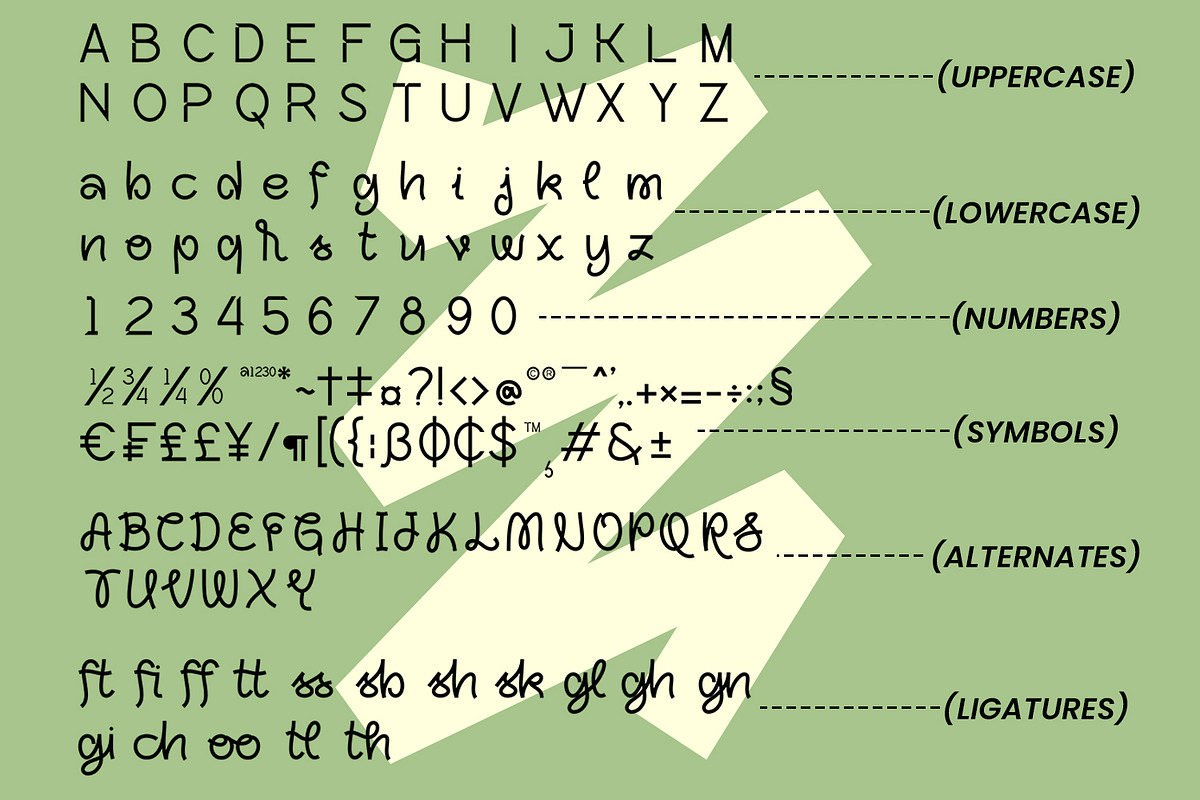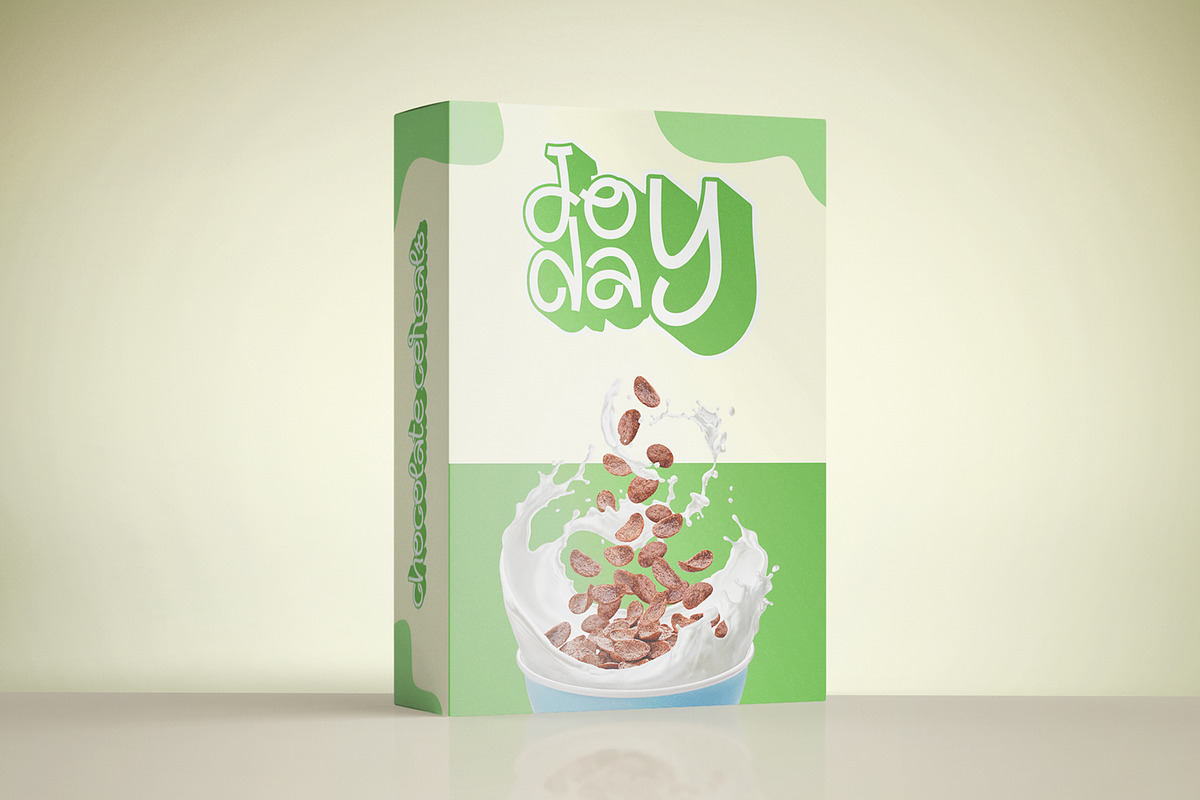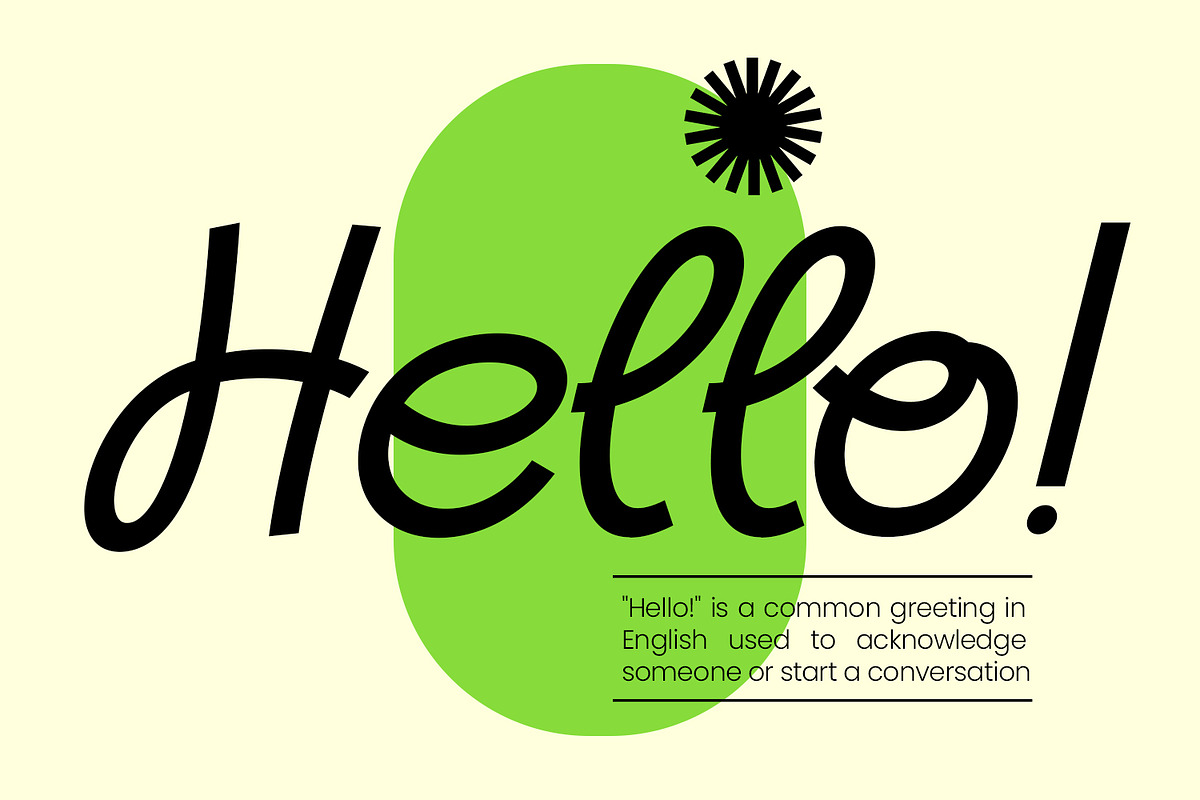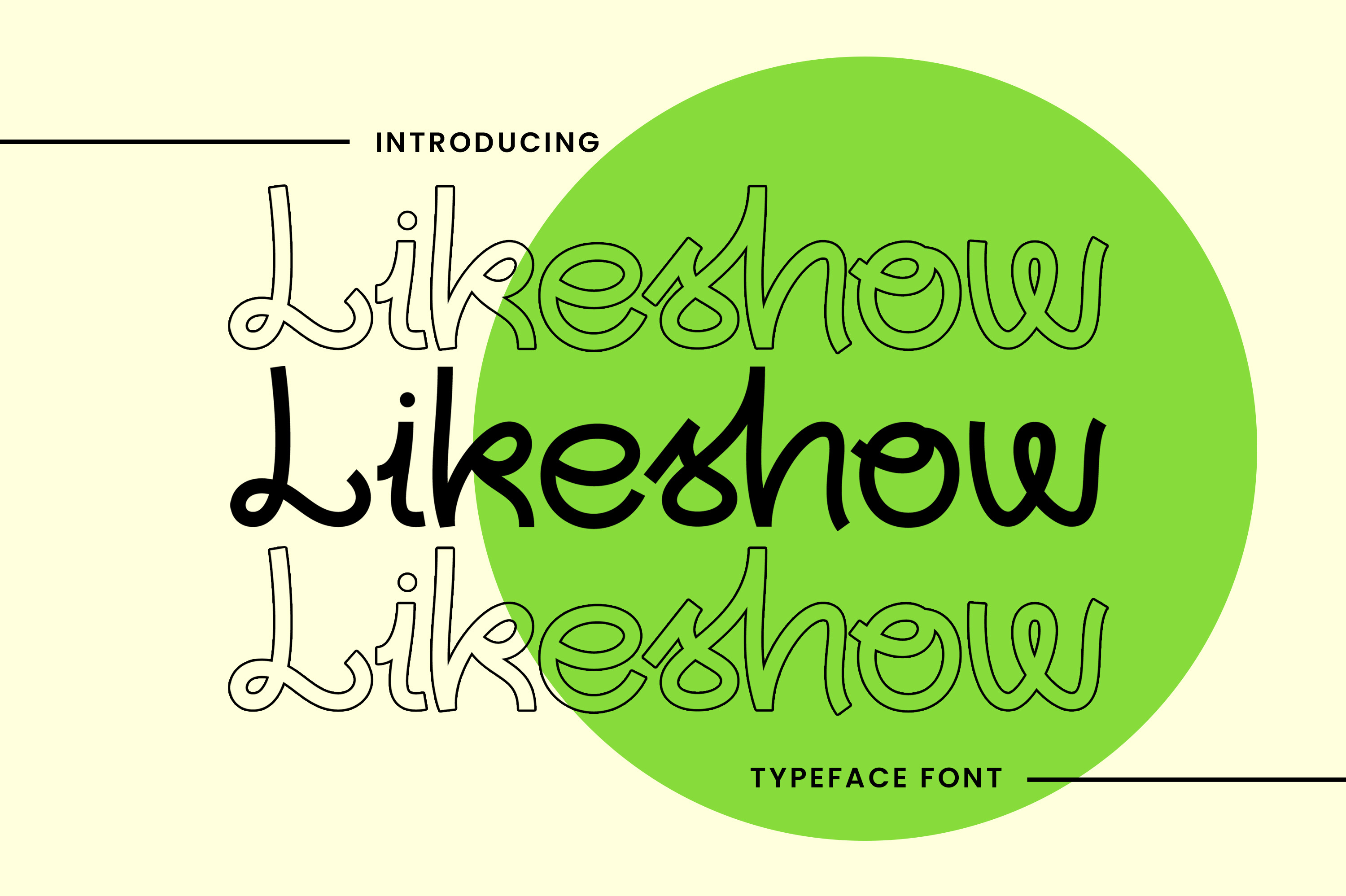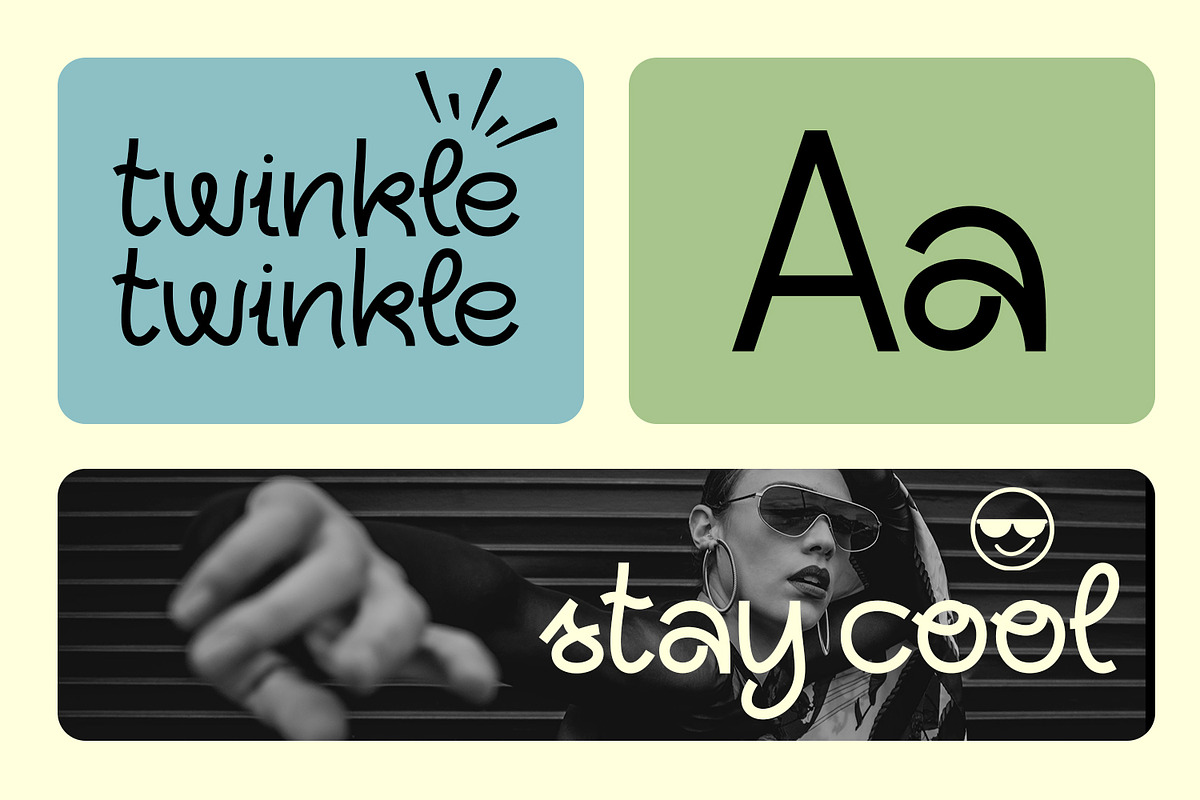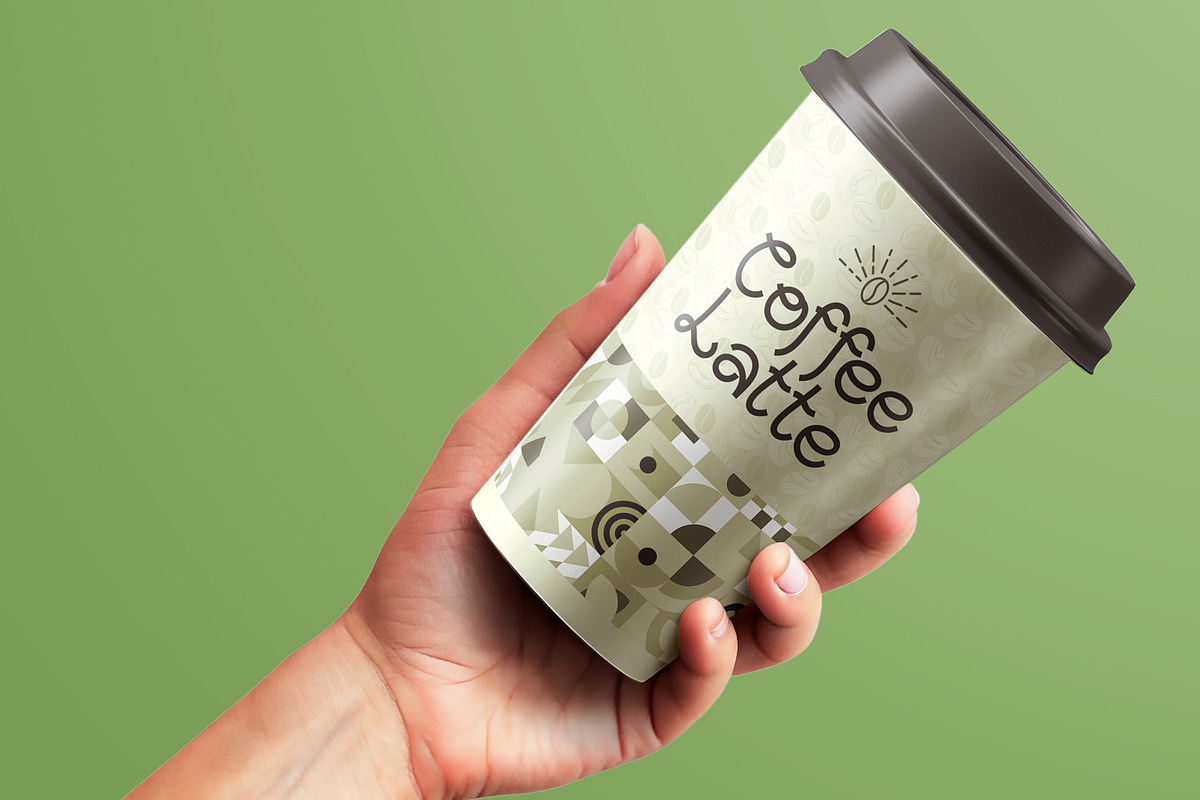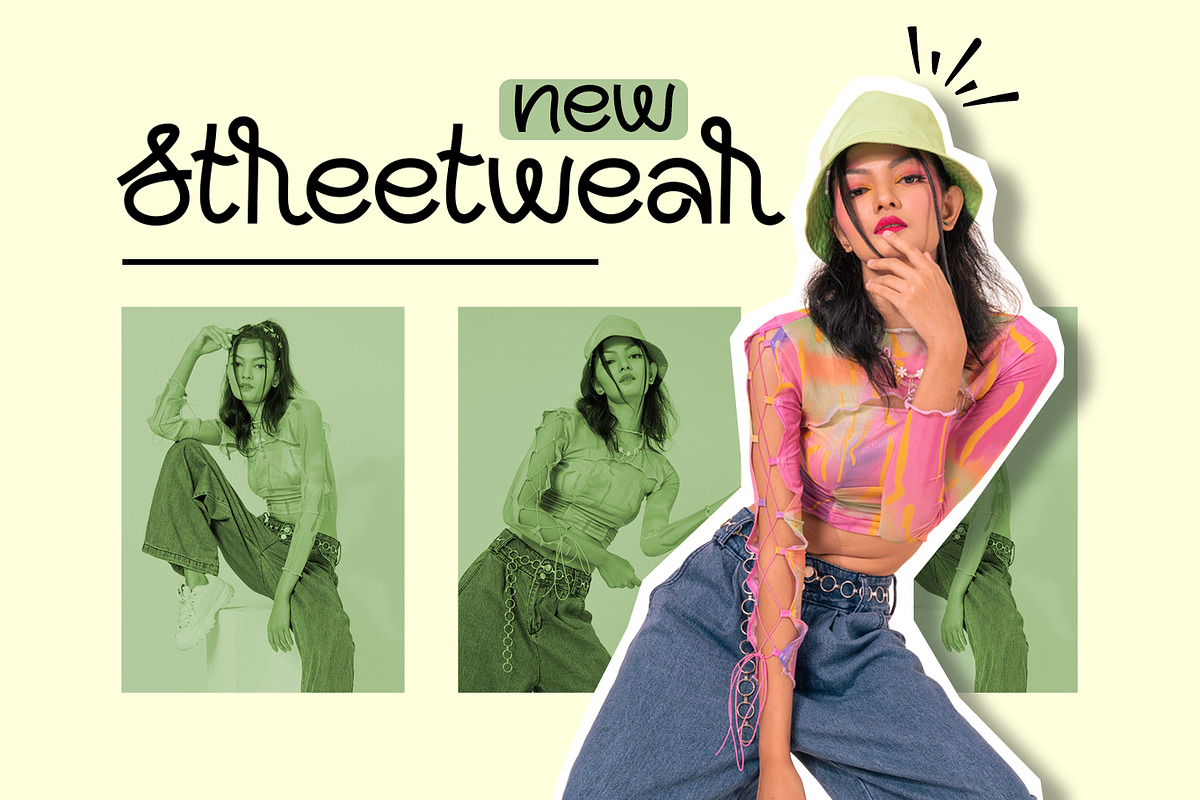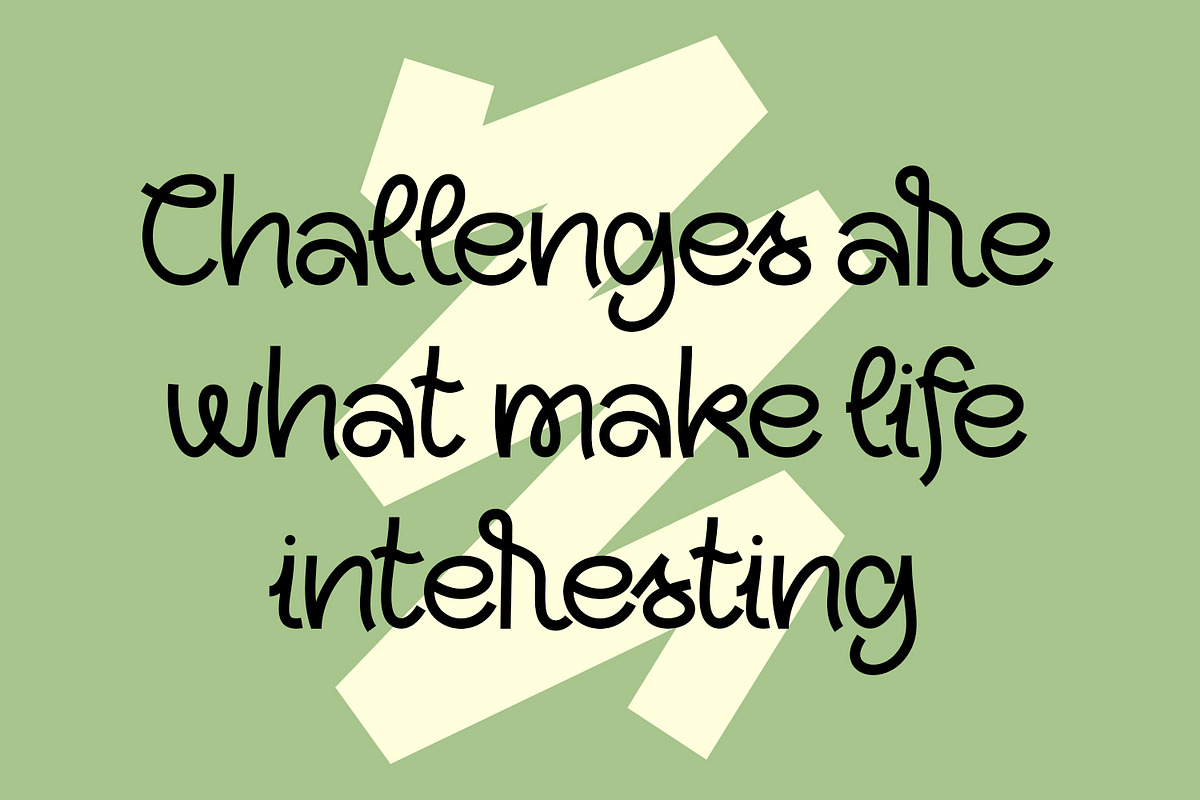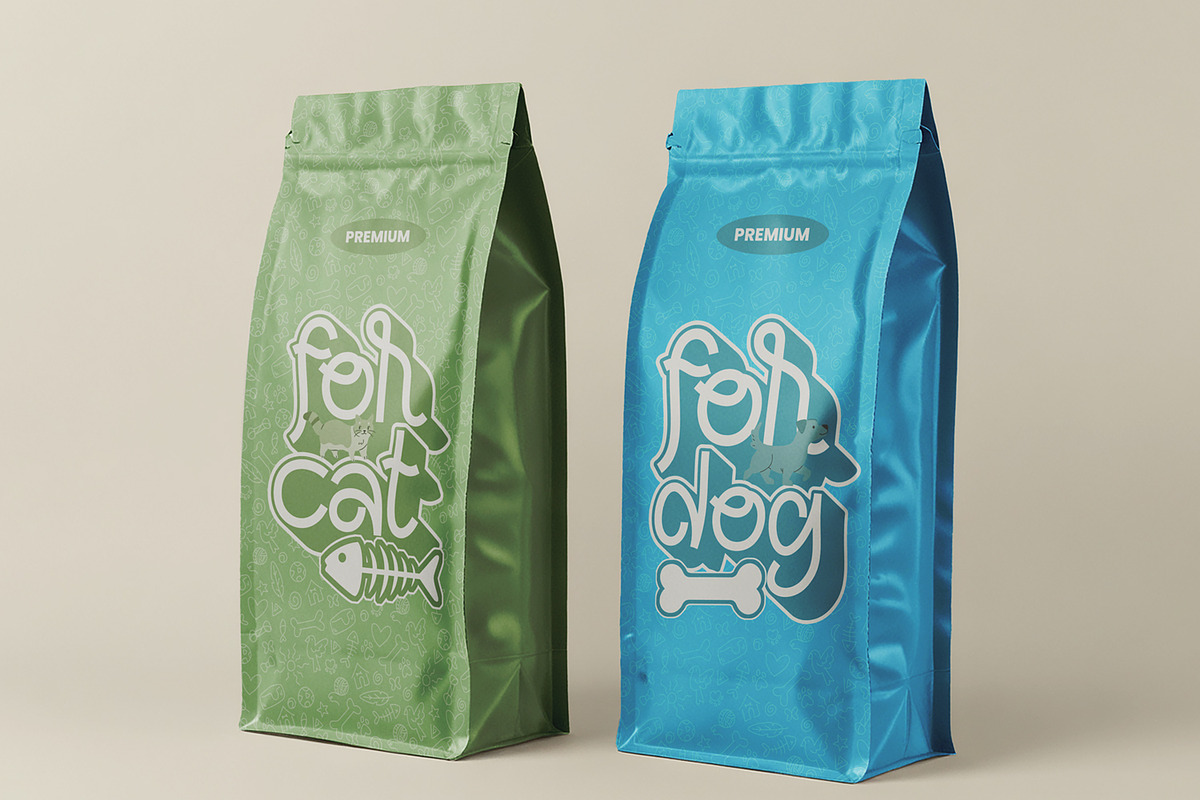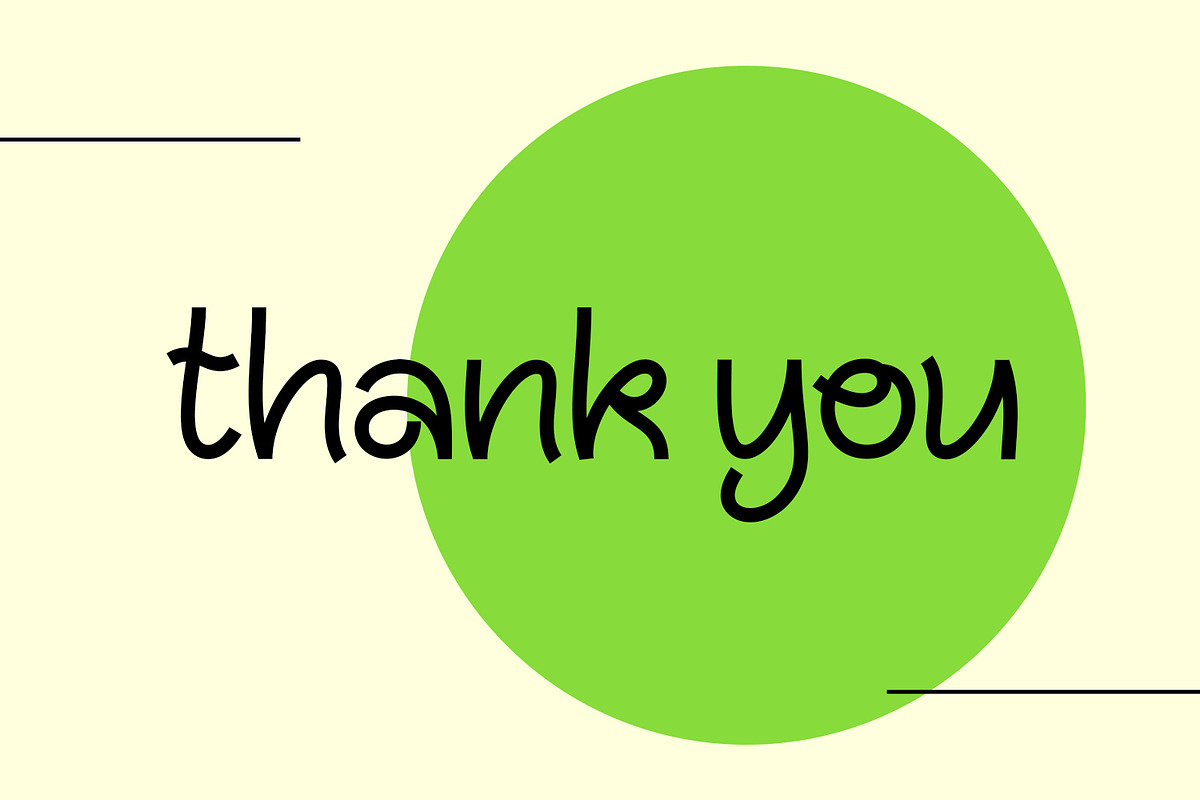
Likeshow - Casual Display Font
Likeshow - Casual Display Font, from Favowrite Studios, is a premium Font, perfect for any project that requires a distinctive, and premium feel.
- Ligature, Alternate & amp; Multilingu